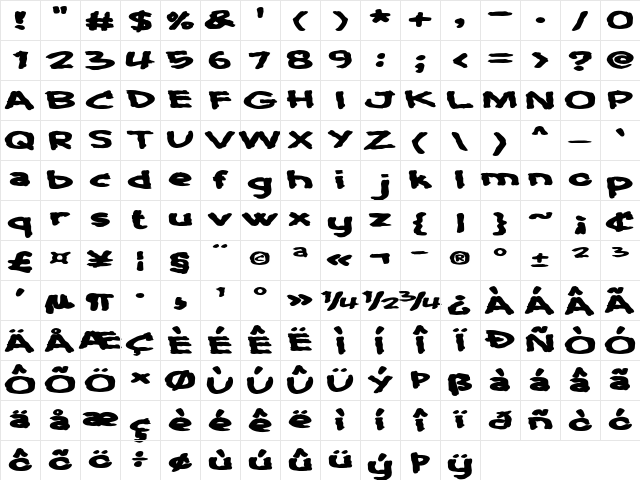
Mystery Manor Extra-expanded Bold Free Font
Mystery Manor Extra-expanded Bold
Style: Extra-expanded Bold
Mystery Manor Family
Mystery Manor Extra-expanded Bold
Complete Mystery Manor Extra-expanded Bold glyph index. Displaying only characters natively supported by Mystery Manor Extra-expanded Bold font.
Design Context for Mystery Manor
Mystery Manor is a composed and adaptable typeface that performs quietly and consistently across a wide range of design contexts. Its bold stroke weight gives it real presence on the page.